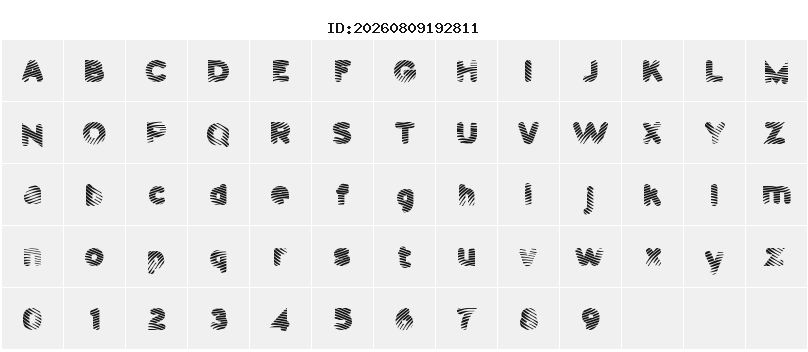
Pants Patrol Preview
• Font Name: Pants Patrol
• Designer: Ray Larabie
About Pants Patrol.ttf
Pants Patrol.ttf is a modern, elegant sans-serif font designed for ultimate readability and visual harmony. Perfect for branding, headlines, web design, and print materials.